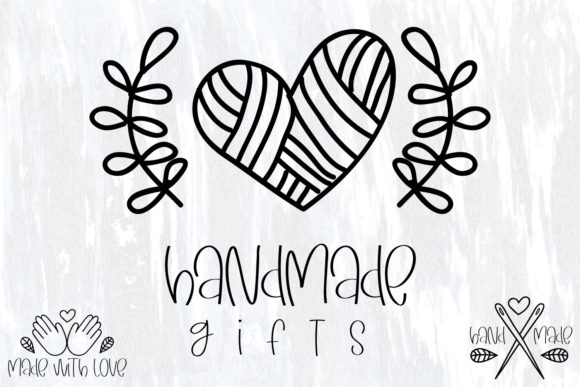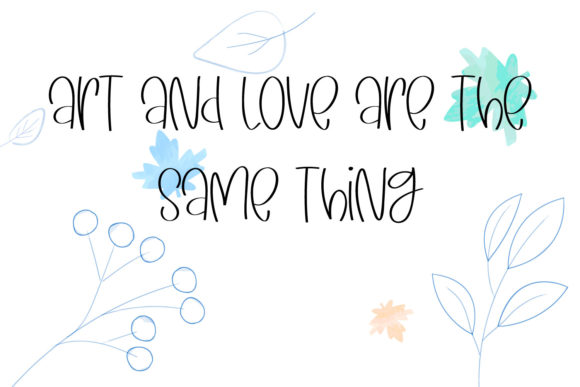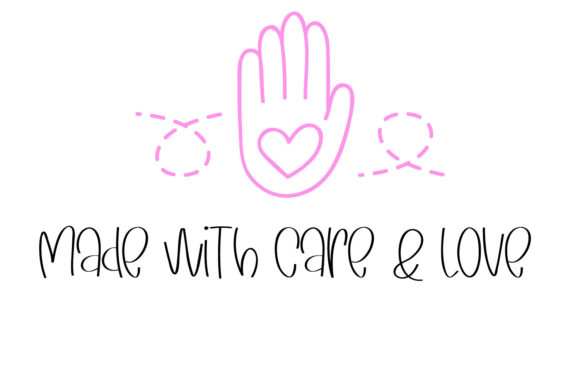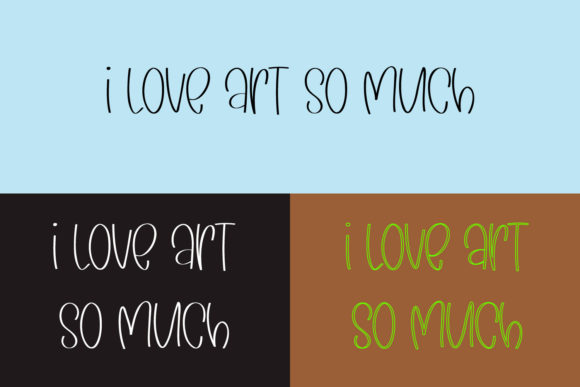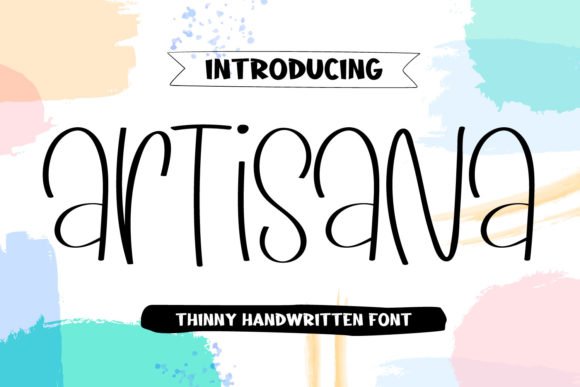
The Perfect Blend of Whimsy and Elegance: Discovering Artisana Font
Have you ever been working on a design project, and just as you’re about to hit publish, you realize it’s missing that special something? That’s when the magic happens, and you start searching for the perfect font to elevate your creation. For designers, finding the right font can be a game-changer, and that’s exactly what the Artisana Font promises to deliver.
This charming handwritten font is more than just a pretty face – it’s a versatile tool that can add a touch of personality to any project. Whether you’re creating a logo, a social media graphic, or a marketing campaign, the Artisana Font has the potential to take your design to the next level. Its unique blend of whimsy and elegance makes it an invaluable addition to any font library.
Artisana Font Key Features
- Unique Characteristics: Artisana Font features a unique blend of modern and traditional elements, making it perfect for projects requiring a sophisticated yet elegant look.
- Language Support: The font supports a wide range of languages, including Latin, Cyrillic, and Greek scripts, making it an excellent choice for international designs.
- Kerning and Ligatures: The font includes advanced kerning and ligature features, ensuring smooth and professional typography in complex text arrangements.
Designer Review: Artisana Font
Overall, I was quite impressed with Artisana Font. It has a unique and elegant feel to it, perfect for projects that need a touch of sophistication. ✨ The font’s clean lines and subtle curves make it an excellent choice for titles and headings.
Here are some of the things I liked about Artisana Font:
- ✨ Its versatility in different font sizes and styles.
- ✨ The subtle nuances in letterforms that add depth and character.
- ✨ Its readability on both digital and print media.
- ⚠️ Artisana Font may not be the best choice for projects that require a bold, attention-grabbing font.
- ⚠️ Some characters may not display well on certain devices or in certain contexts.
Overall, I would recommend Artisana Font for projects that require a refined, elegant look. While it may have its limitations, it’s a solid choice for designers who want to add a touch of sophistication to their work.
Tips for Getting the Most Out of Artisana Font
For optimal results, use Artisana Font in conjunction with high-quality images and graphics. Experiment with different font sizes, colors, and alignments to achieve a unique and visually appealing design.
Artisana Font is ideal for creative and artistic projects, such as:
– Designing book covers and titles
– Creating posters and flyers
– Developing branding and logos
– Writing articles and blog posts
Alternatives to Artisana Font for Designers
Great Vibes is a beautiful, handwritten font that is perfect for adding a touch of elegance to your designs. It’s ideal for use in invitations, greeting cards, and other materials where you want to convey a sense of sophistication. Great Vibes is similar to Artisana Font in its flowing, handwritten style, but has a more refined and polished look.
Carolyna Pro is a modern, elegant script font that is great for use in branding, packaging, and advertising. It’s a versatile font that works well in a variety of contexts, from formal to informal. Compared to Artisana Font, Carolyna Pro has a more streamlined and sophisticated look, making it a great choice for designers who want to create a high-end feel.
Alex Brush is a elegant, handwritten font that is perfect for use in designs where you want to add a touch of whimsy and personality. It’s a great choice for use in social media graphics, blog posts, and other materials where you want to convey a sense of playfulness and creativity. Compared to Artisana Font, Alex Brush has a more casual and relaxed look, making it a great choice for designers who want to create a friendly and approachable feel.